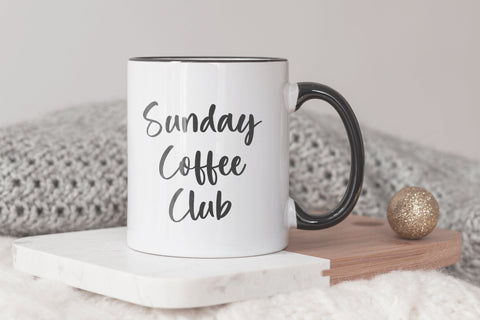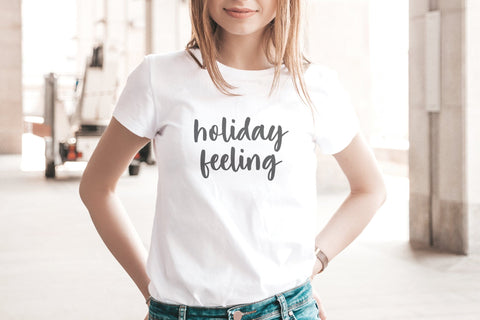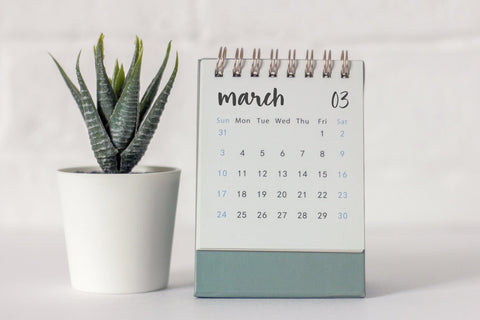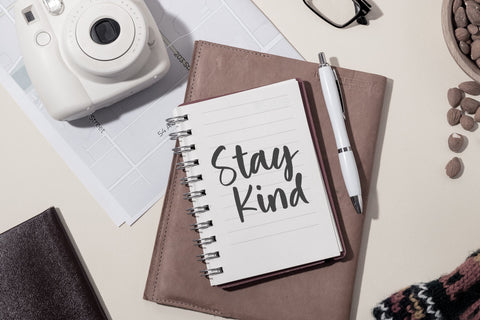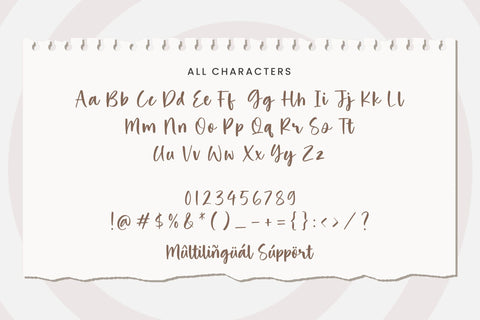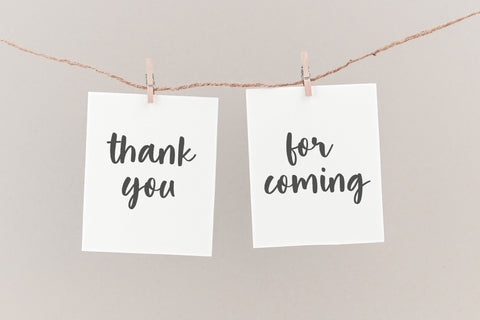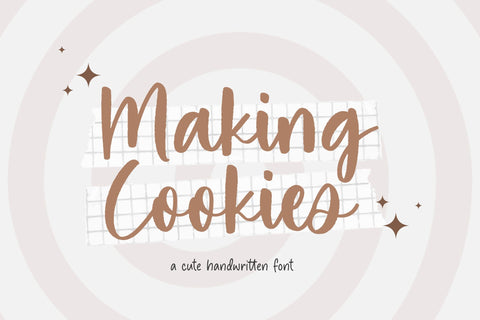
Making Cookies - Handwritten Font
Proudly Present, Making Cookies
Making Cookies - Handwritten font , which was created with great care and specially created for you
Making Cookies is perfect for product packaging, branding project, megazine, social media, wedding, or just used to express words above the background.
– multilingual support.